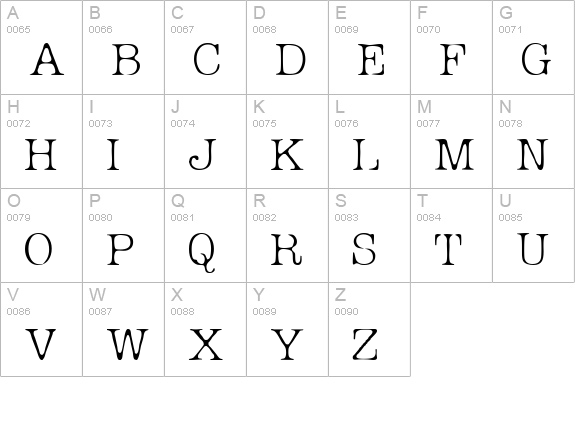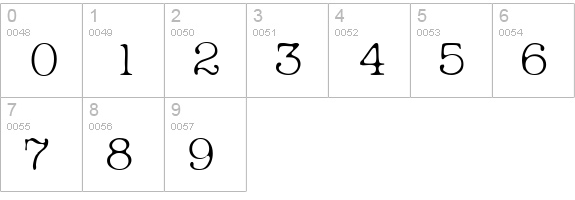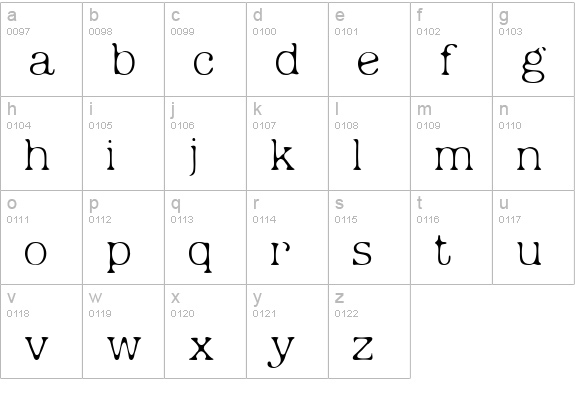
Micahels Plain Font Details
Introducing Micahels Plain font - a versatile and modern typeface perfect for various design projects. This elegant font features clean lines and a timeless aesthetic, making it ideal for both digital and print applications. Whether you're designing a logo, branding materials, or creating stunning typography for a website, Micahels Plain font is sure to make your text stand out. The best part? Micahels Plain font is available for free download at FontsMarket.com. This means you can easily access this high-quality font without any cost, making it a great choice for budget-conscious designers and creators. Don't miss out on the opportunity to elevate your designs with the sophistication and refinement of Micahels Plain font - download it today and start creating beautiful typographic compositions effortlessly.